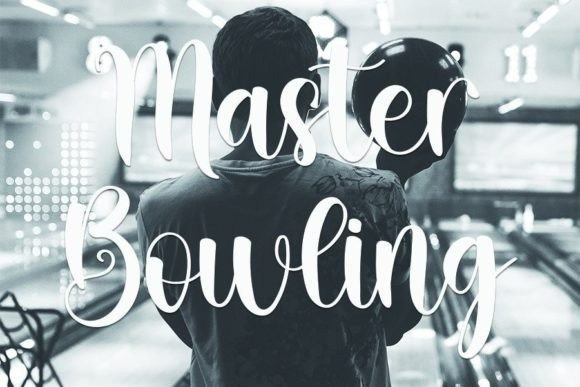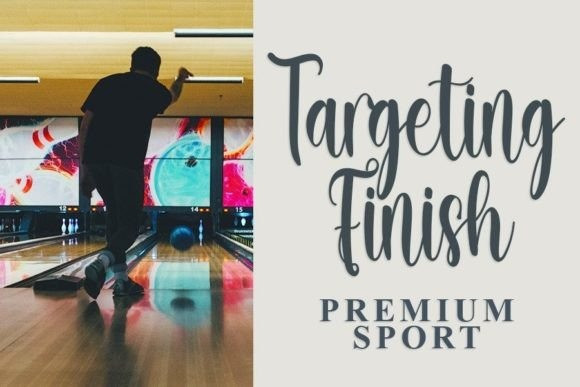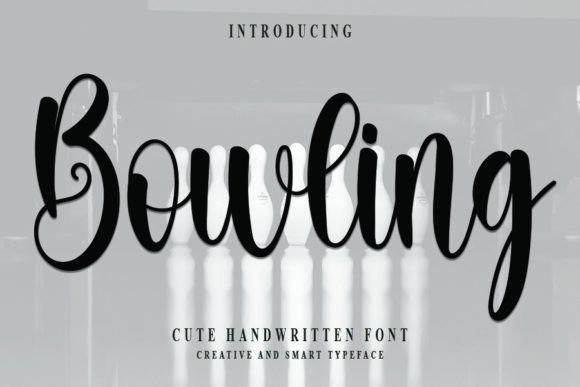
Bowling Font
Bowling Font is a stylish handwritten font with a contemporary atmosphere and impeccable form, inspired by a timeless classic calligraphy. Balanced and varied, this font was designed to enhance the beauty of your projects.